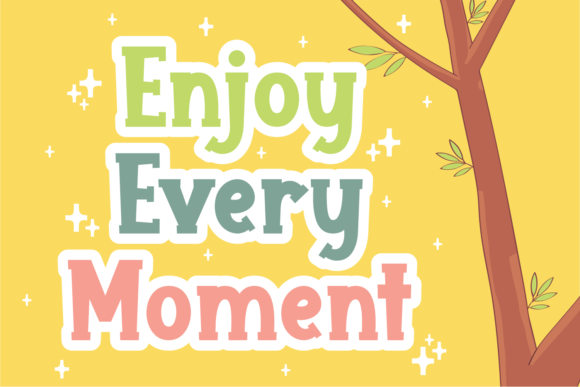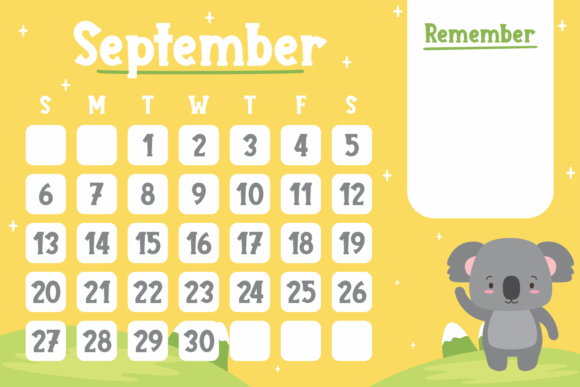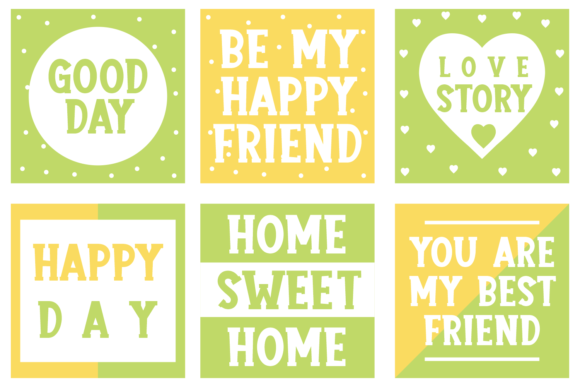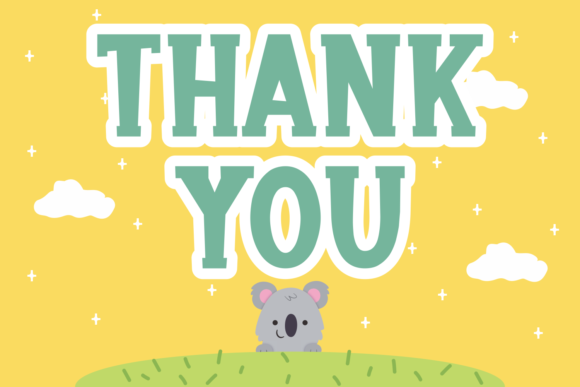
Discover the Cutest Font to Brighten Up Your Designs
Have you ever stumbled upon a font that immediately sparks creativity and puts a smile on your face? That’s exactly what happened when I first laid eyes on the Hello Koala Font. Its sweet and playful style is the perfect antidote to a long day of staring at screens, and I couldn’t wait to dive in and explore its possibilities.
As a versatile display font, Hello Koala Font is designed to bring a touch of warmth and friendliness to a wide range of designs, from children’s books to social media graphics and beyond. With its neat and approachable style, this font has the potential to become a true favorite among designers, and for good reason – it’s perfect for adding a personal touch to your work without overpowering the message.
Hello Koala Font Key Features
- Unique Characteristics: The font features a distinctive koala-inspired design, with rounded edges and a friendly, approachable feel.
Hello Koala Font Review
Overall, I think the Hello Koala Font is a cute and charming addition to any project. Here are a few things that really stand out to me: ✨
- Unique and quirky character designs that really bring a smile to my face
- Wide range of weights and styles to choose from, making it easy to find the perfect fit for your project
- Highly customizable, with plenty of options for tweaking the look and feel to suit your needs
- Lack of support for certain languages, which may be a problem for projects that need to be translated
- Some of the more complex characters may not render as well on certain devices or browsers
- Not as extensive a character set as some other fonts, which may limit its use in certain contexts
Overall, I think the Hello Koala Font is a great choice for projects that need a playful and whimsical feel. While it may not be the most versatile or widely supported font out there, it’s definitely worth considering if you’re looking for something a little bit different.
Use Hello Koala Font for creating playful and whimsical designs, such as:
- Children’s book covers
- Party invitations
- Food and drink branding
Remember to experiment with different font sizes, colors, and combinations to get the most out of Hello Koala Font.
Alternatives to Hello Koala Font
Great Vibes is a modern, elegant script font ideal for creating a sophisticated and whimsical atmosphere. It’s perfect for designing wedding invitations, greeting cards, and other special occasions. Compared to Hello Koala Font, Great Vibes has a more refined and polished look, making it suitable for formal events and high-end branding.
Crimson Text is a serif font with a vintage touch, ideal for creating a classic and timeless look. It’s suitable for designing books, magazines, and other publications where a traditional feel is desired. Compared to Hello Koala Font, Crimson Text has a more formal and structured appearance, making it suitable for academic and professional contexts.
Alex Brush is a handwritten script font with a touch of elegance and sophistication. It’s perfect for designing invitations, greeting cards, and other creative projects. Compared to Hello Koala Font, Alex Brush has a more fluid and organic look, making it suitable for artistic and expressive designs.
Ostrich Sans is a sans-serif font with a modern and playful touch, ideal for creating a fun and energetic atmosphere. It’s suitable for designing logos, branding materials, and other creative projects where a bold and youthful look is desired. Compared to Hello Koala Font, Ostrich Sans has a more edgy and modern appearance, making it suitable for tech and startup branding.
For optimal readability, we recommend using a font size between 10-14 points and a line height of 1.2-1.5 times the font size. This will ensure that the text is easy to read and understand, while also maintaining a visually appealing layout.